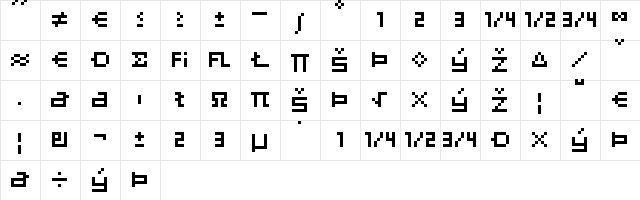
Eboy EXTAlphaExpert Font Preview
Eboy EXTAlphaExpert
Eboy EXTAlphaExpert Font Details
| Style | EXTAlphaExpert |
Design Context for Eboy Typeface
Eboy takes a measured approach to typography — its balanced proportions and neutral character make it a reliable workhorse for both digital and print work.
Dating back to 1998, this typeface is available in OpenType (OTF) format.